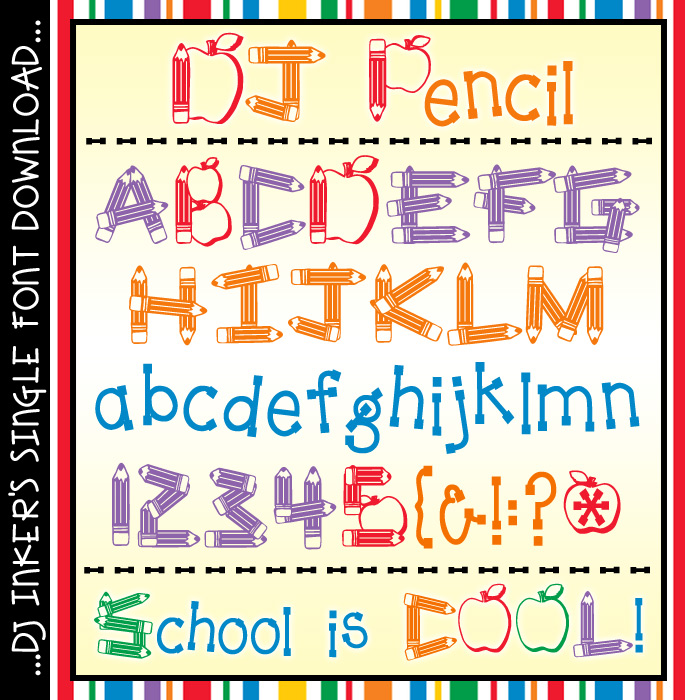
DJ Pencil Font Download
DJ Pencils is great for spelling out anything for school!  It's a bold, decorative, headline font, so it looks best it large sizes and strong colors. Try using these pencil and apple letters on nameplates, headers or signs around your classroom. (djdf99)